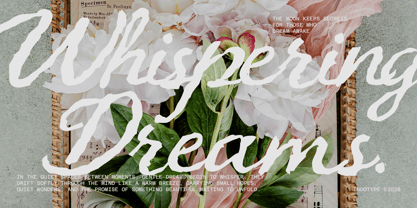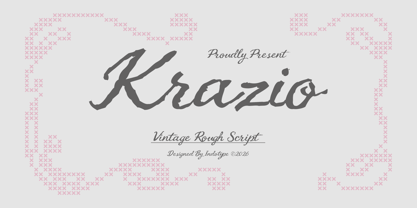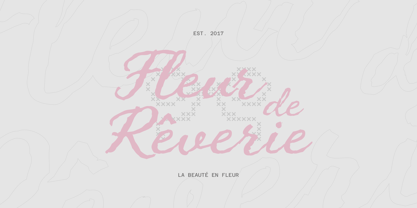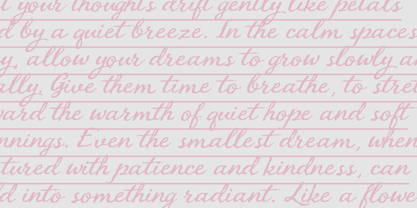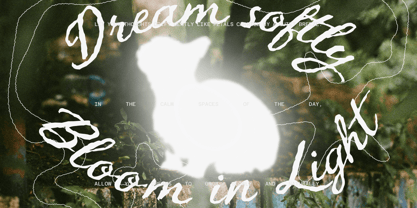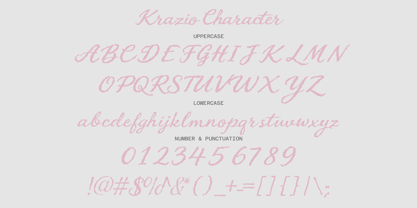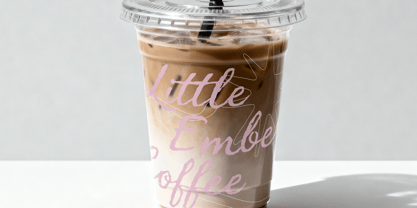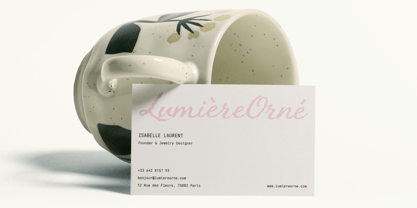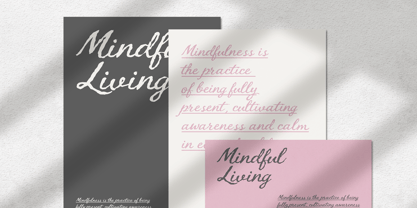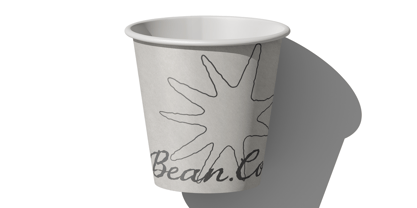
IT Krazio
by Indotype
The IT Krazio Font Family was designed by Dede Kurniawan and published by Indotype. IT Krazio contains 1 styles. More about this family
Krazio is a vintage rough script typeface that captures the raw, expressive energy of hand-lettered signage from a bygone era. Designed by Indotype, Krazio channels the spirit of mid-century craft culture — bold brush strokes with deliberate imperfections, ink-worn edges, and the unmistakable warmth of a human hand at work. It's a typeface that tells a story before a single word is read. Design Characteristics At its core, Krazio is defined by its intentionally roughened texture — letterforms bear the hallmarks of authentic hand-craftsmanship: irregular stroke edges, subtle ink bleed, and organic weight variation that no digital tool can fabricate. The connected cursive script flows with confident rhythm, each character linked naturally to the next, mimicking the fluid motion of a broad-nib brush drawn across paper. The generous uppercase letterforms — particularly the sweeping capitals — are designed to function as standalone display elements, making Krazio equally powerful as a full-word logotype or as an initial-cap accent in mixed typographic layouts. Its calligraphic DNA references American Sign Painting, mid-century European poster lettering, and the informal hand-scripts of artisan trade labels. Texture & Authenticity What separates Krazio from smooth digital scripts is its commitment to tactile authenticity. The roughened outlines are not a filter applied after the fact — they are drawn into the construction of each glyph, meaning the distress feels structural rather than decorative. This gives the typeface remarkable visual integrity whether printed on kraft paper, embossed on packaging, or scaled to billboard proportions on a digital screen. Ideal Use Cases Krazio thrives in branding and design contexts where character, nostalgia, and authenticity are essential. It is ideally suited for: craft beverage and food brand identities (coffee, whiskey, artisan bakeries), vintage-themed merchandise and apparel graphics, music festival and event poster design, barbershop and tattoo studio branding, handmade goods packaging and labels, rustic wedding and stationery design, social media content for lifestyle and artisan brands, and retro-styled editorial headlines. Its versatility makes it a go-to choice for designers working in the vintage, rustic, bohemian, and Americana aesthetics — anywhere that polished perfection would feel out of place and raw authenticity is the goal.